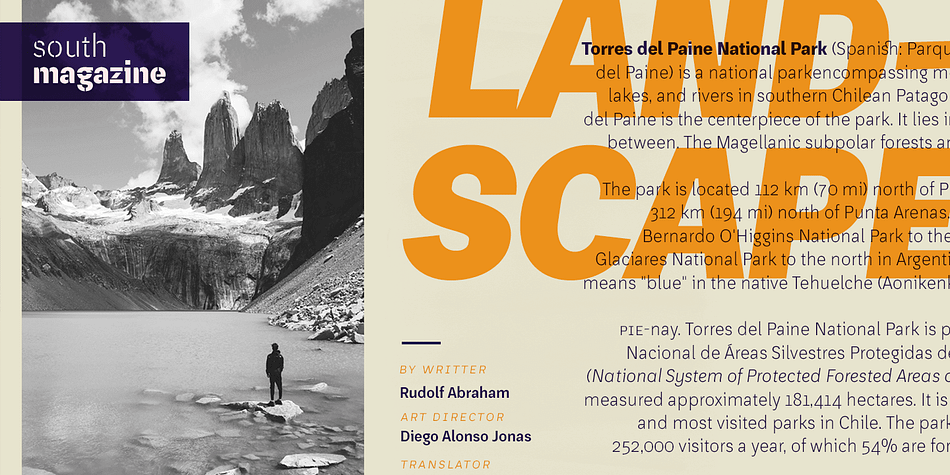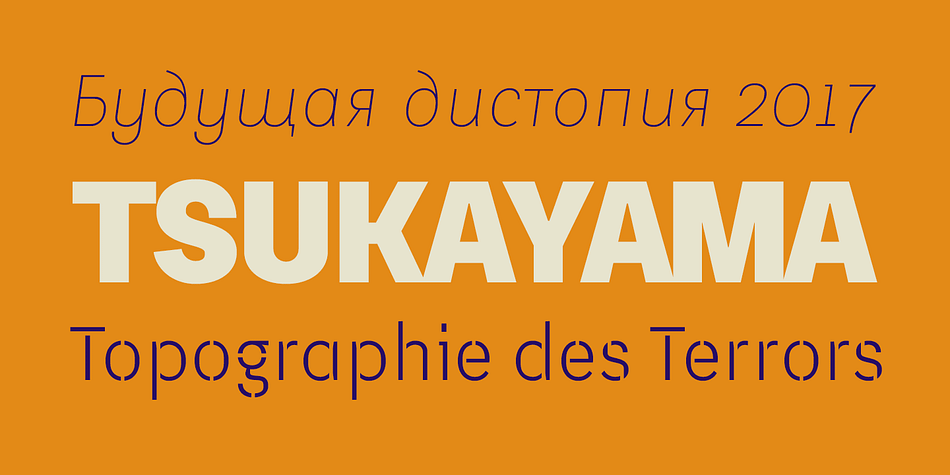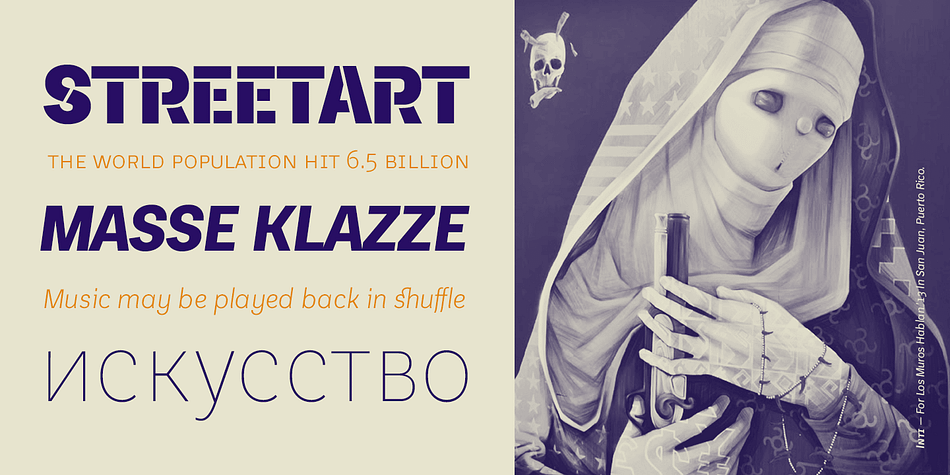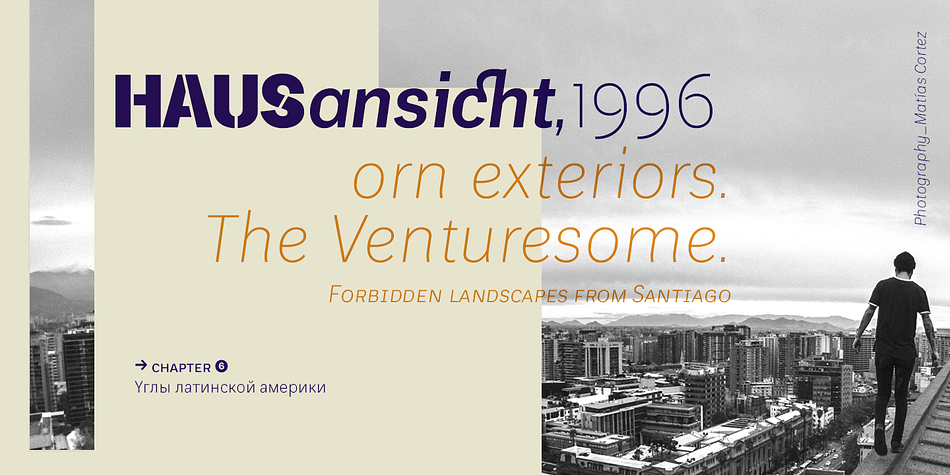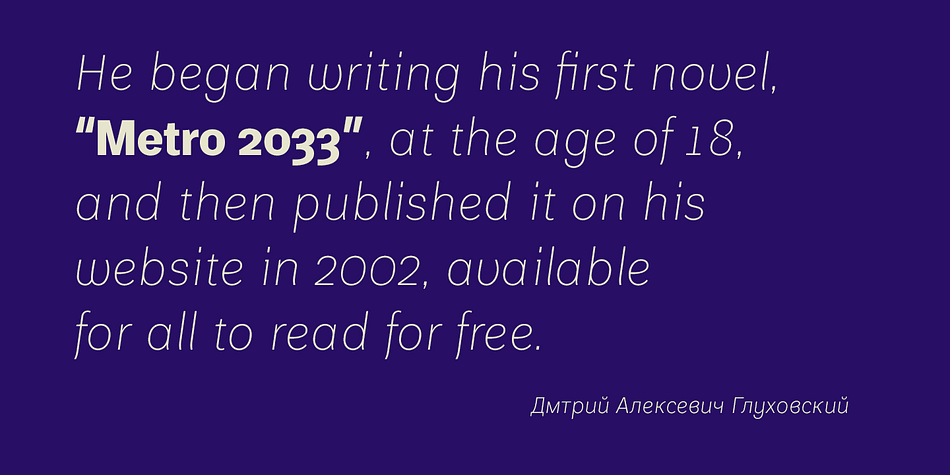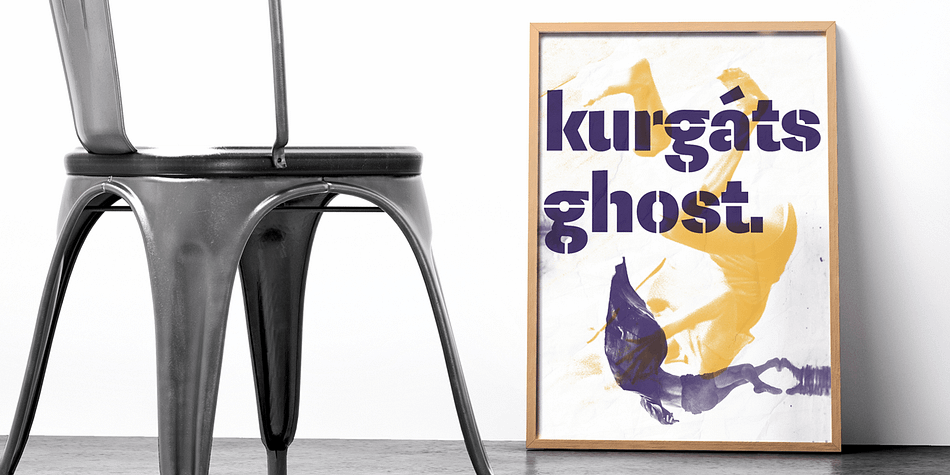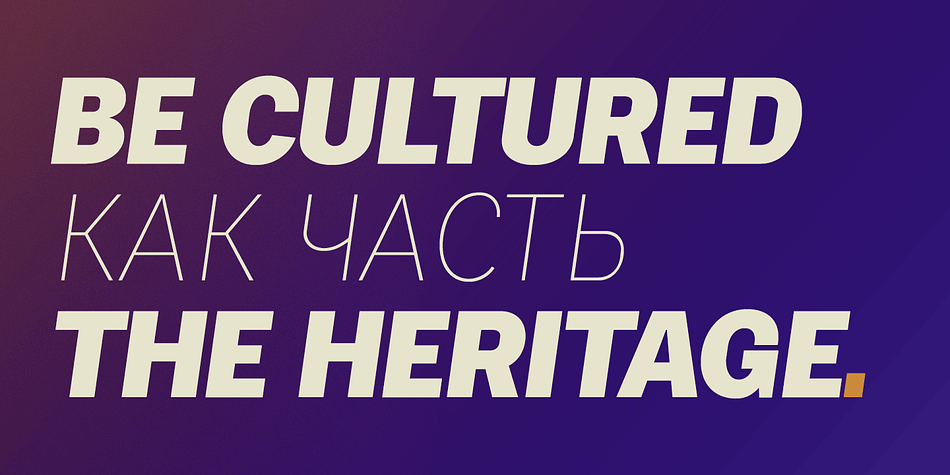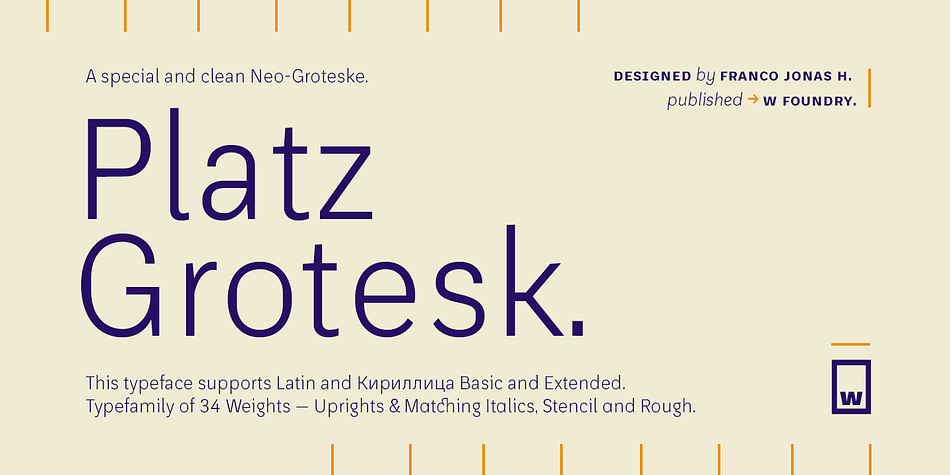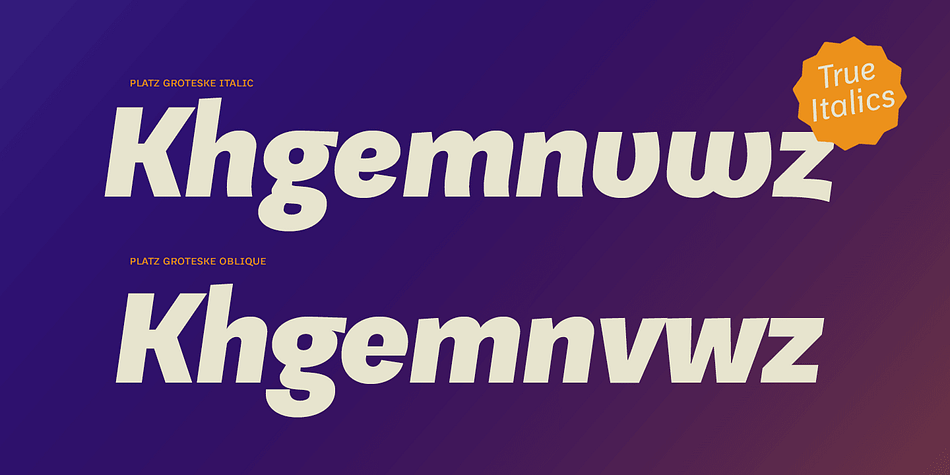
Platz Grotesk
Designed by Franco Hernández, Platz Grotesk is a sans serif and stencil font family. This typeface has thirty-four styles and was published by W Foundry.
Platz Grotesk has been designed parallel within the neogrotesque universe of typefaces and is inspired by humanist proportions and humanist-grotesk features. Firstly, this hybrid has a smaller x height, thus it possesses wider typeface whites in order to be legible in small sizes, vertical strokes which are located inside the typeface bowl that are slightly straight to not affect the typeface legibility and, finally, has fresh-fun features which culminate in a totally versatile typefamily, ideally to be used inside any visual communication application.
Additionally, Platz typefamily possesses true italics, obliques, a stencil and stencil rough version, all completely equipped with opentype features, alternative glyphs, fractions, lining numbers, old style figures, capsular numbers, superscript and inferiors. Also, this typeface supports Latin, basic and extended Cyrillic.
Designer Franco Jonas Hernández